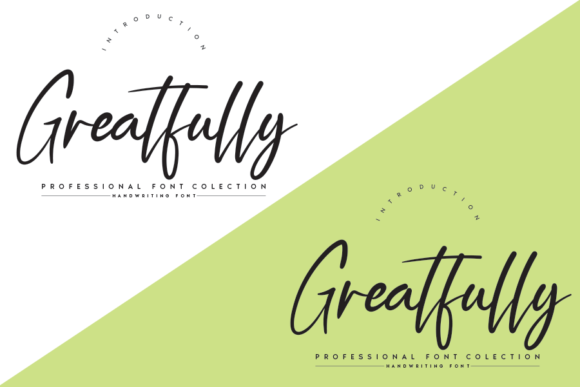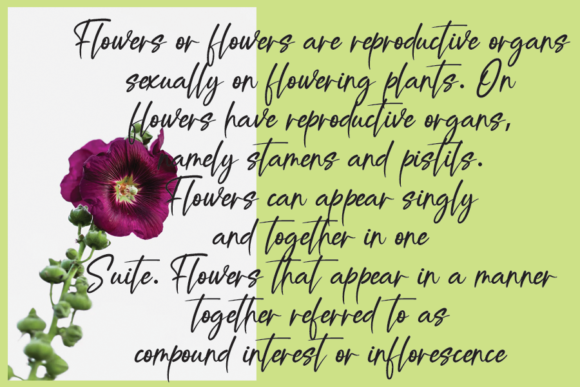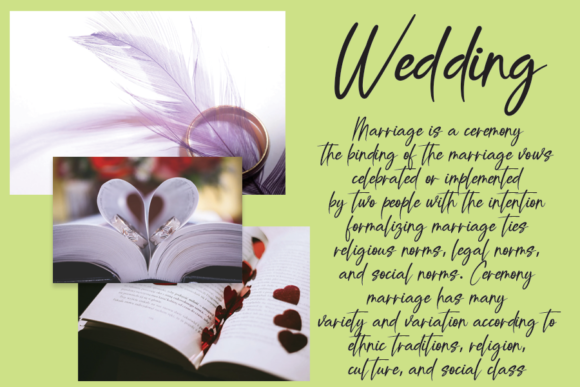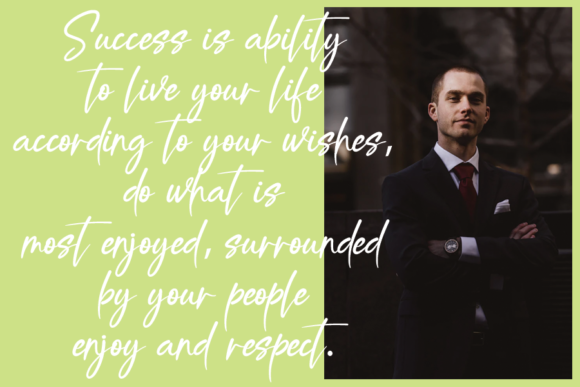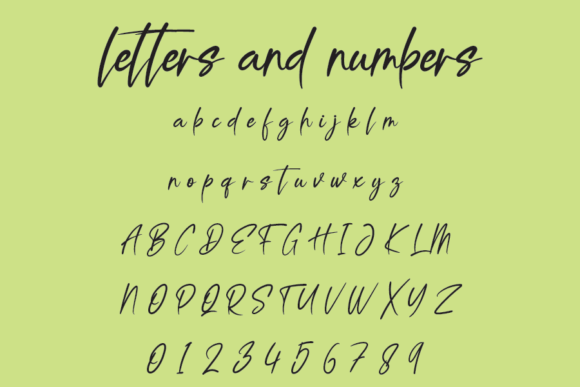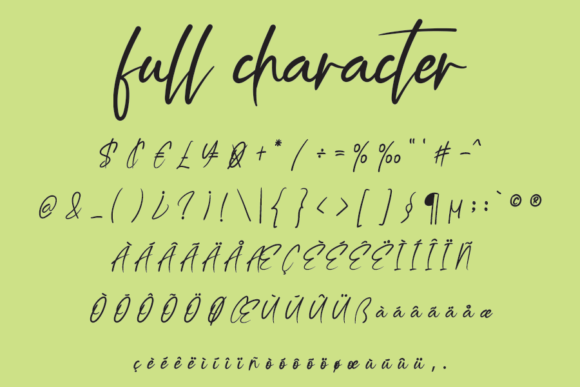
Introduction to Greatfully Font
Greatfully is a flowing handwritten font, described by an elegant touch, perfect for your favorite projects.
Key Features of Greatfully Font
Why Choose Greatfully Font?
Greatfully Font offers exceptional quality and versatility, making it a valuable addition to your design toolkit. Whether you’re creating for personal projects or commercial use, Greatfully Font delivers professional results.